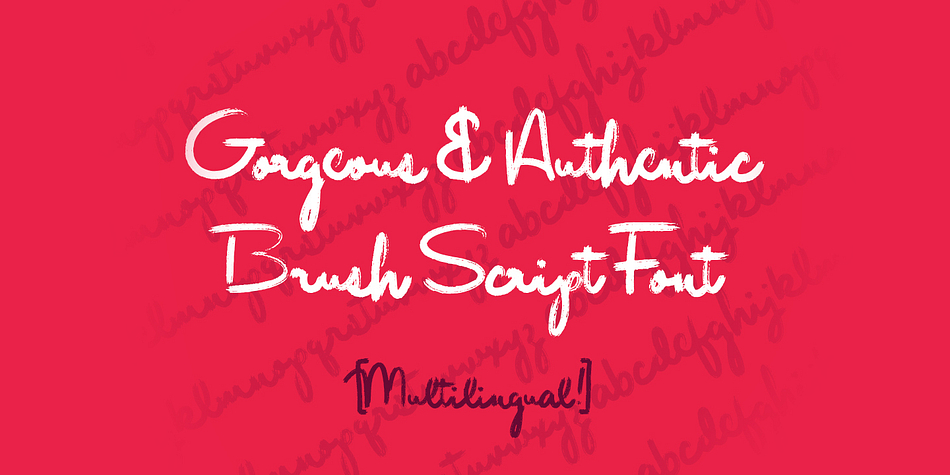
Rough Brush Script
Rough Brush Script is a script and brush script font published by Tom Chalky.
Introducing a font that I am particularly proud of, Rough Brush Script.
It is an authentic brush font that is true to its nature.
Full of personality, texture and so raw, it
This font is handcrafted and multilingual.
Introducing a font that I am particularly proud of, Rough Brush Script. It is an authentic brush font that is true to its nature. Full of personality, texture and so raw, it’s practically breathing.
This font is handcrafted and multilingual. There are over 1000 kerning (the space between two particular letters) pairs to ensure that the flow of the font is natural and easy to work with!